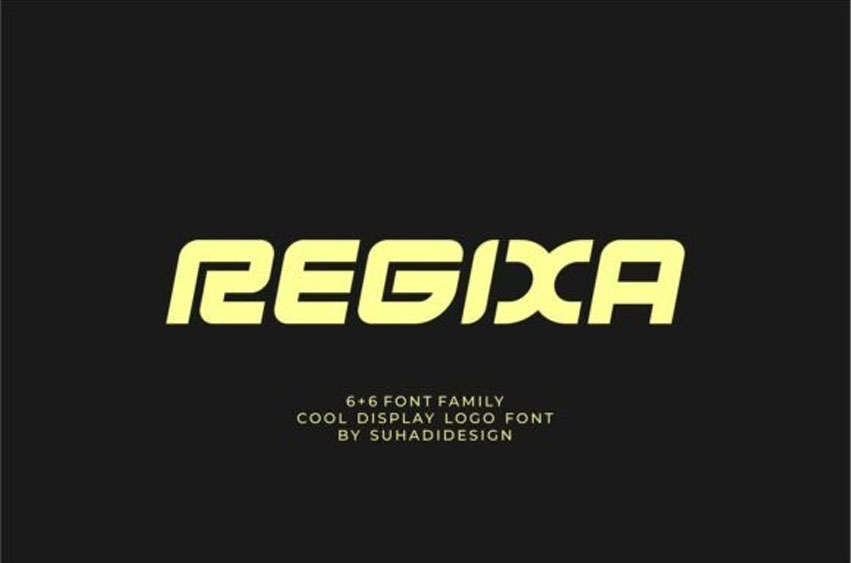
Regixa Normal Font is a bold and stylish display typeface designed for modern branding and futuristic logo designs. With its clean curves, sharp angles, and unique geometric character shapes, Regixa brings a sleek, tech-inspired energy to any visual identity.
This typeface includes a 6+6 font family, offering a complete set of weights and matching italics for design flexibility. Its strong, streamlined forms are ideal for logos, headlines, posters, sportswear, product packaging, and digital interfaces.